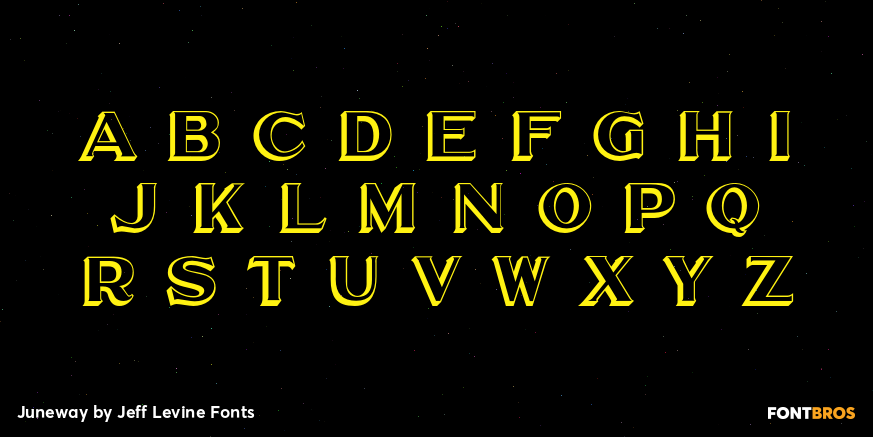
Juneway
Jeff Levine acquired a set of original water-applied decals made by the Duro Decal Company of Chicago (now Duro Art Industries) and painstakingly recreated one of the classic hand-drawn typefaces from the Duro line.
Named after the street where the company is located, Juneway JNL is an authentic reproduction for the computer-based designer.